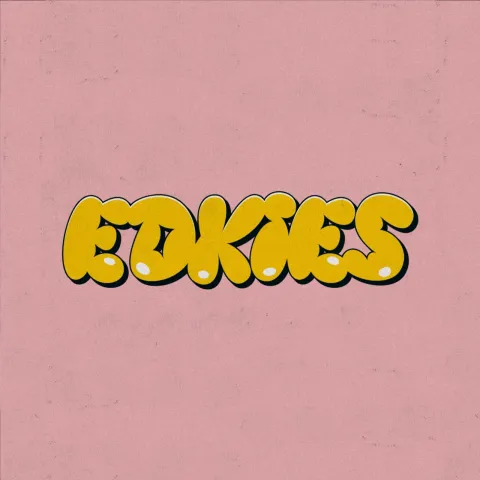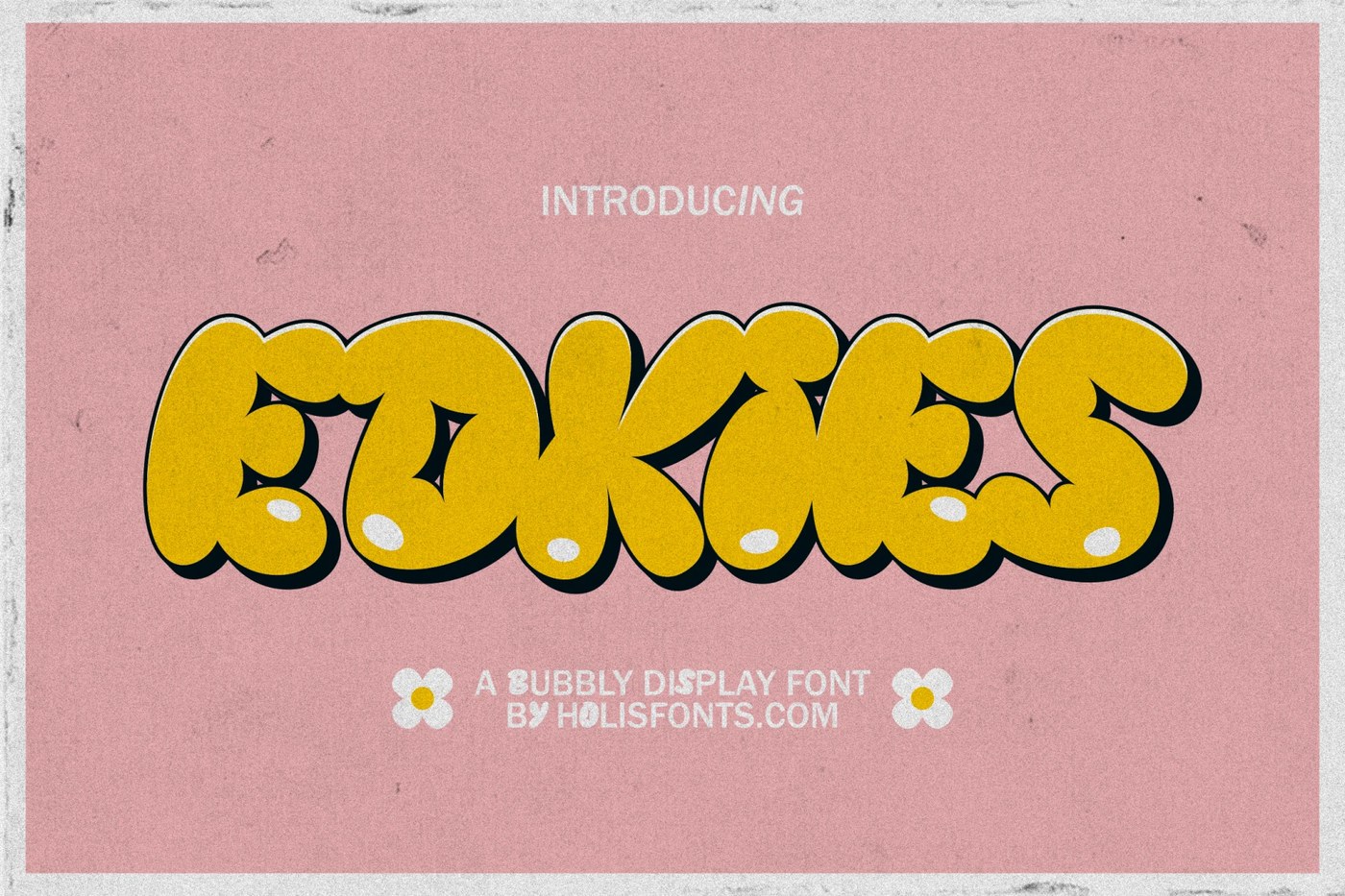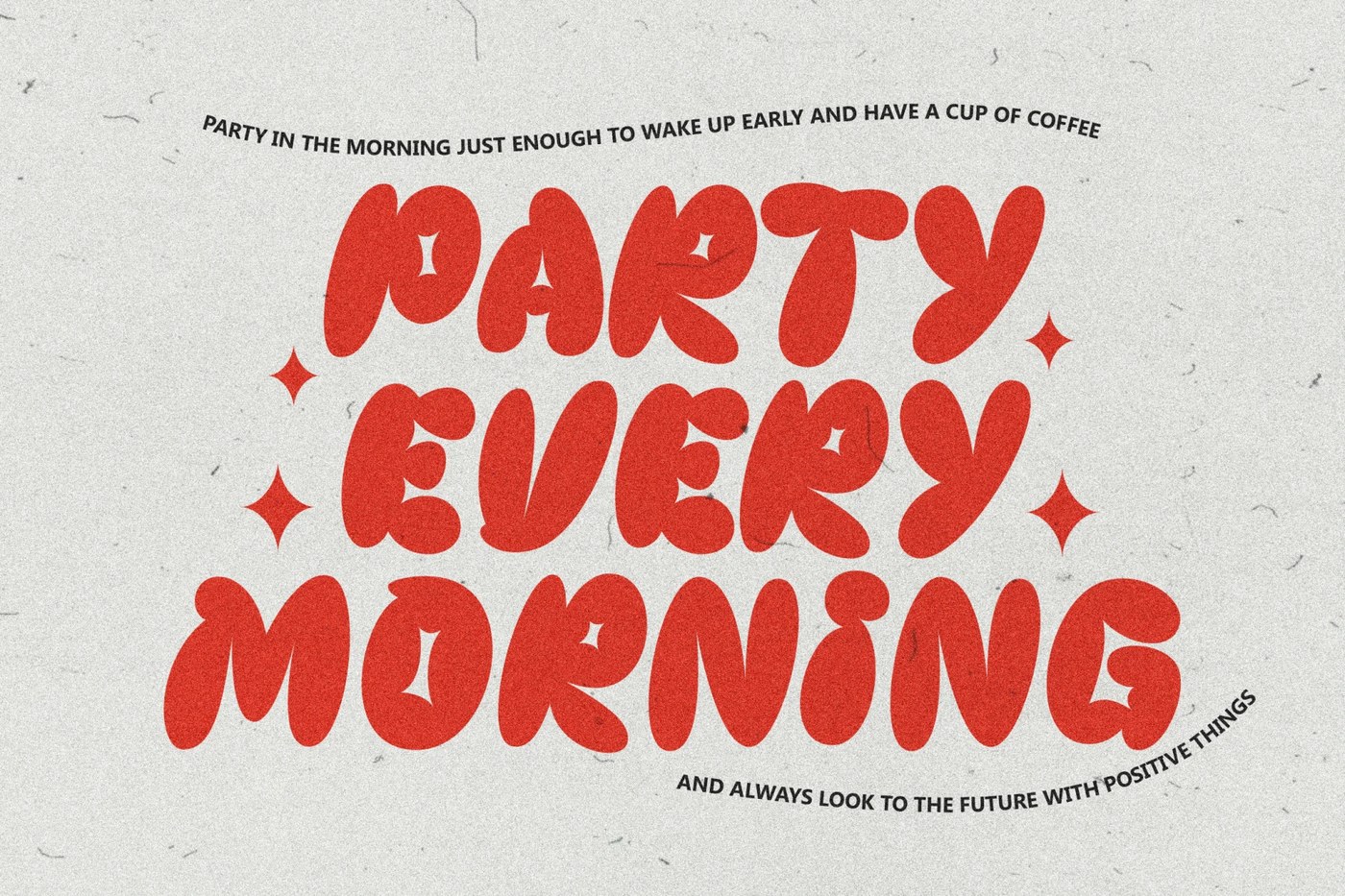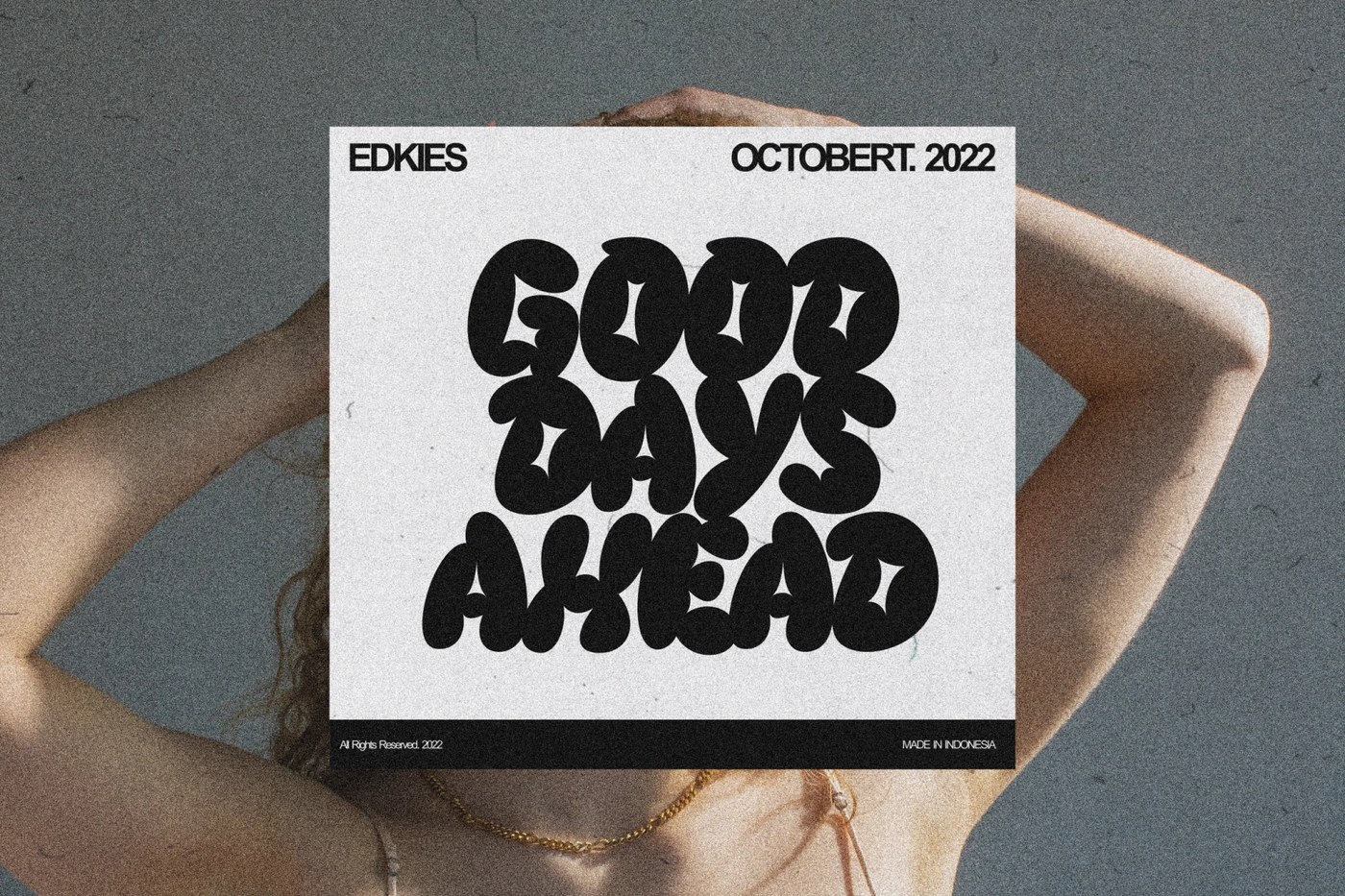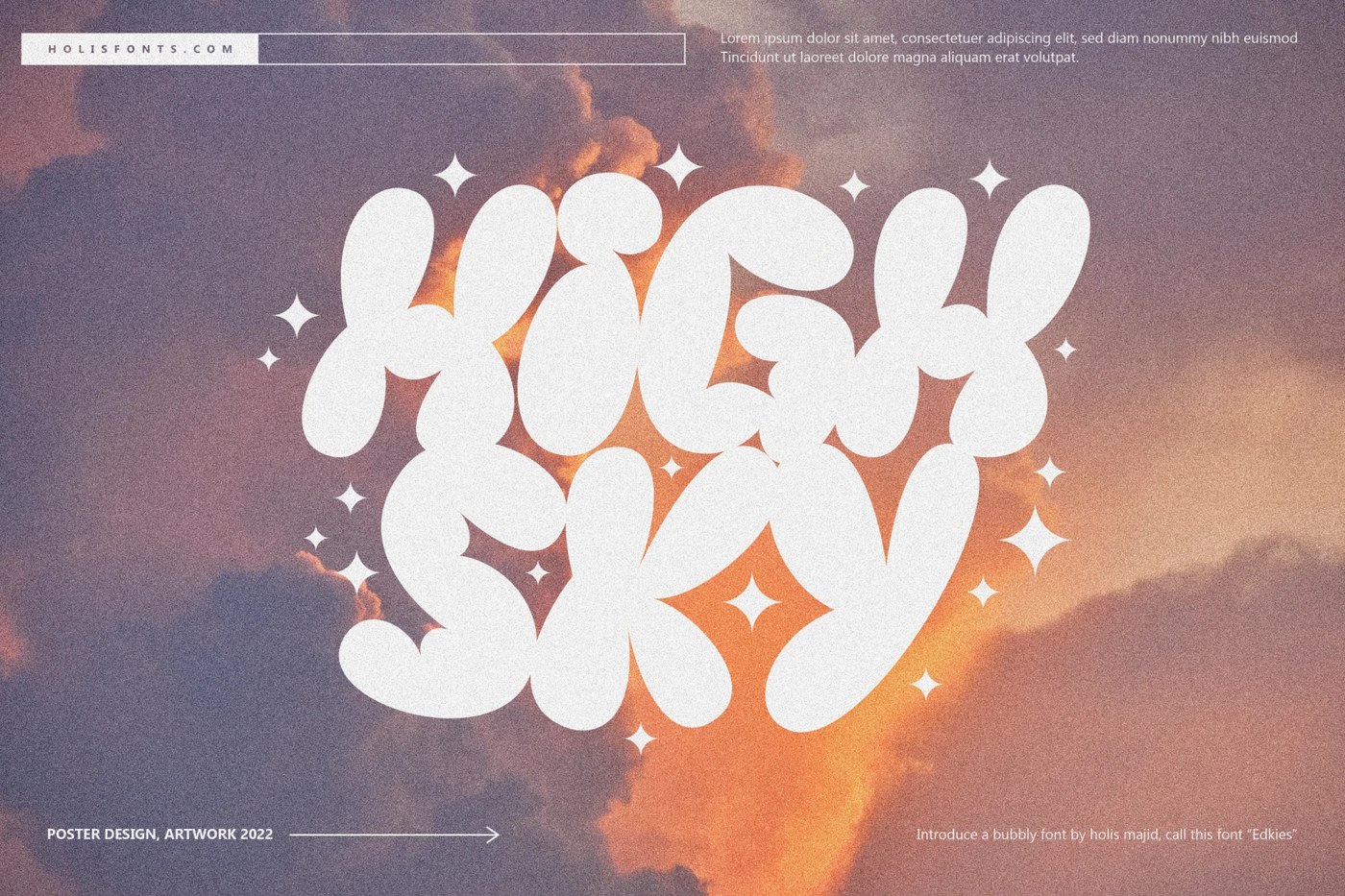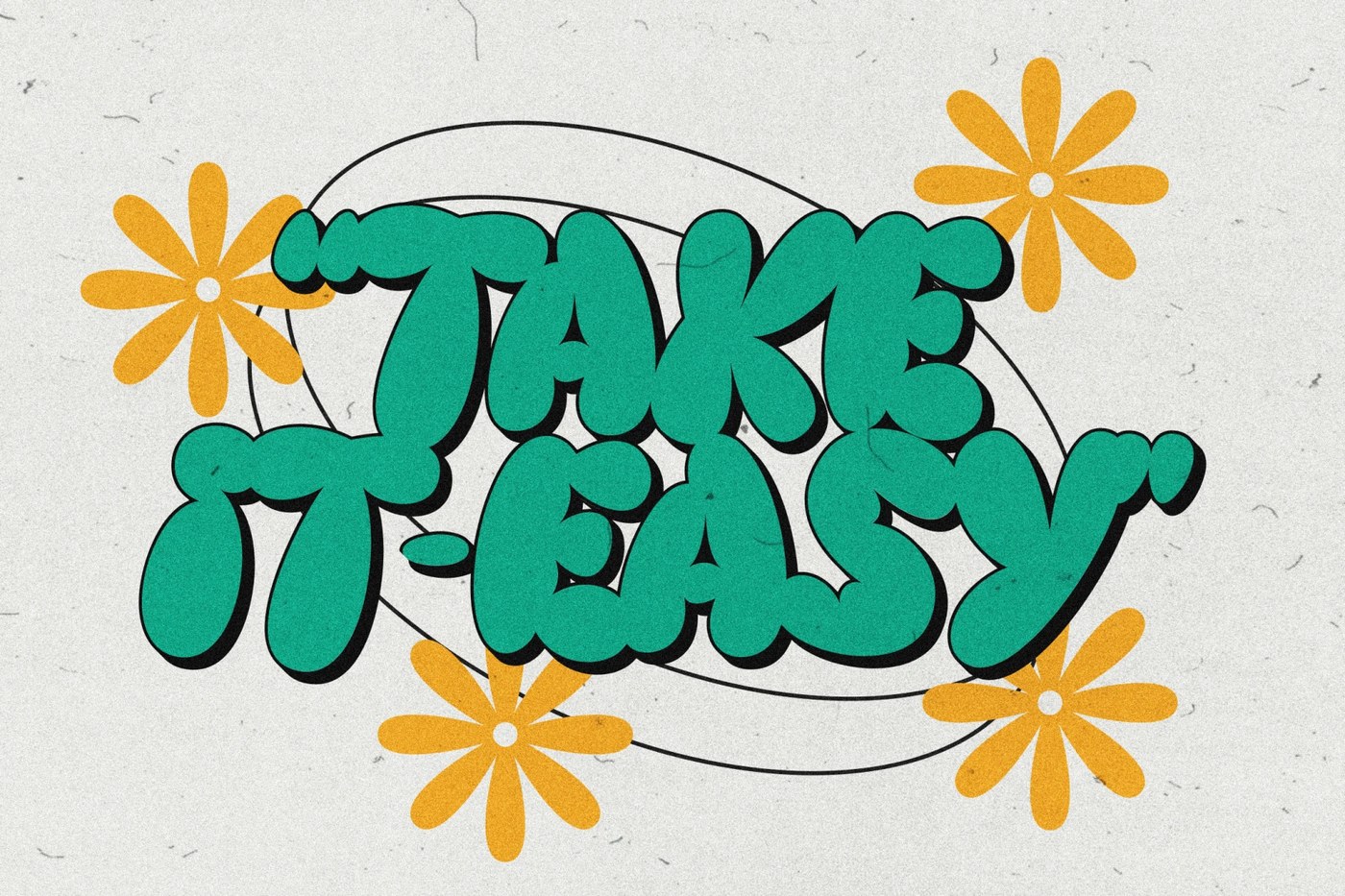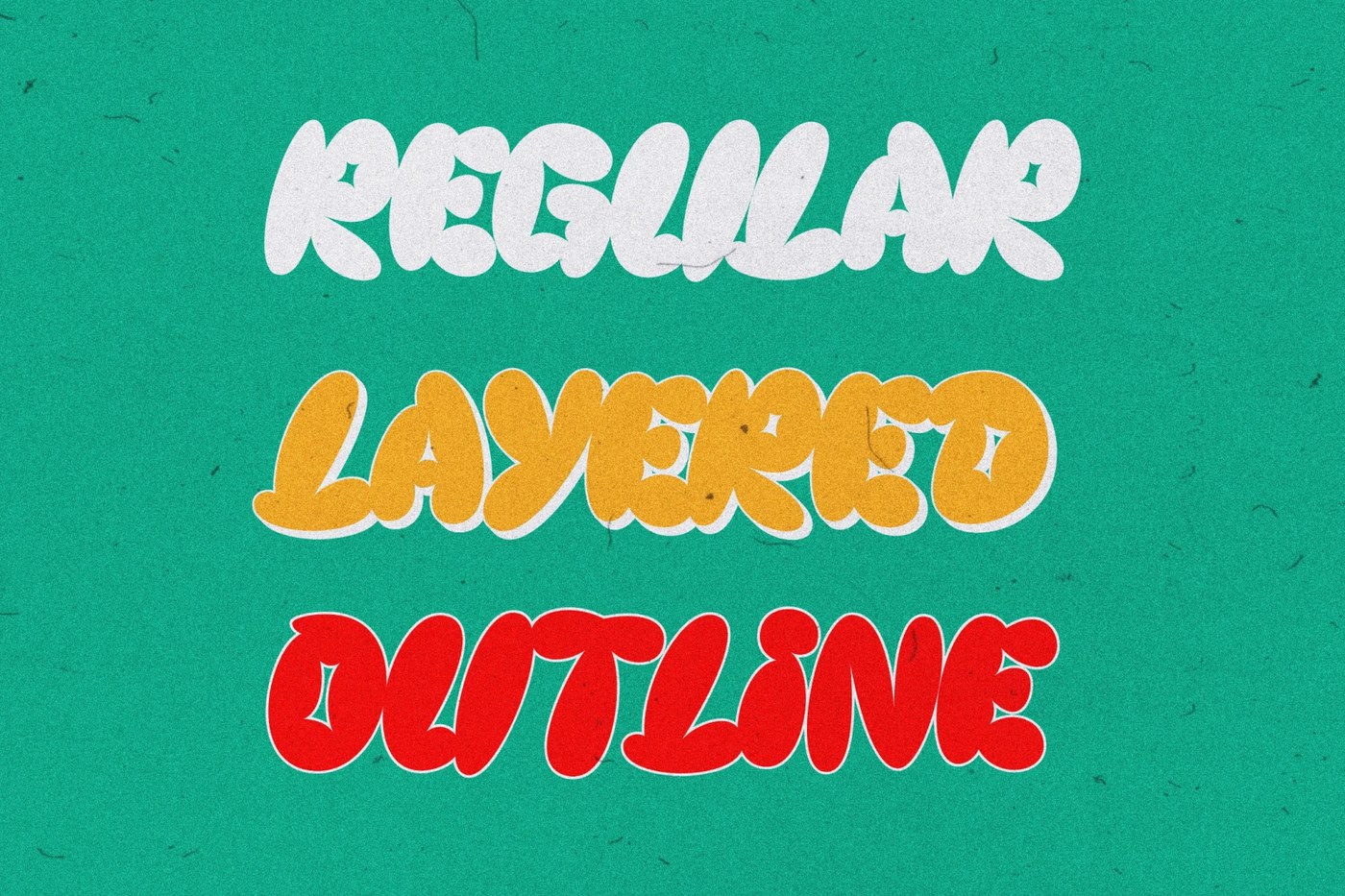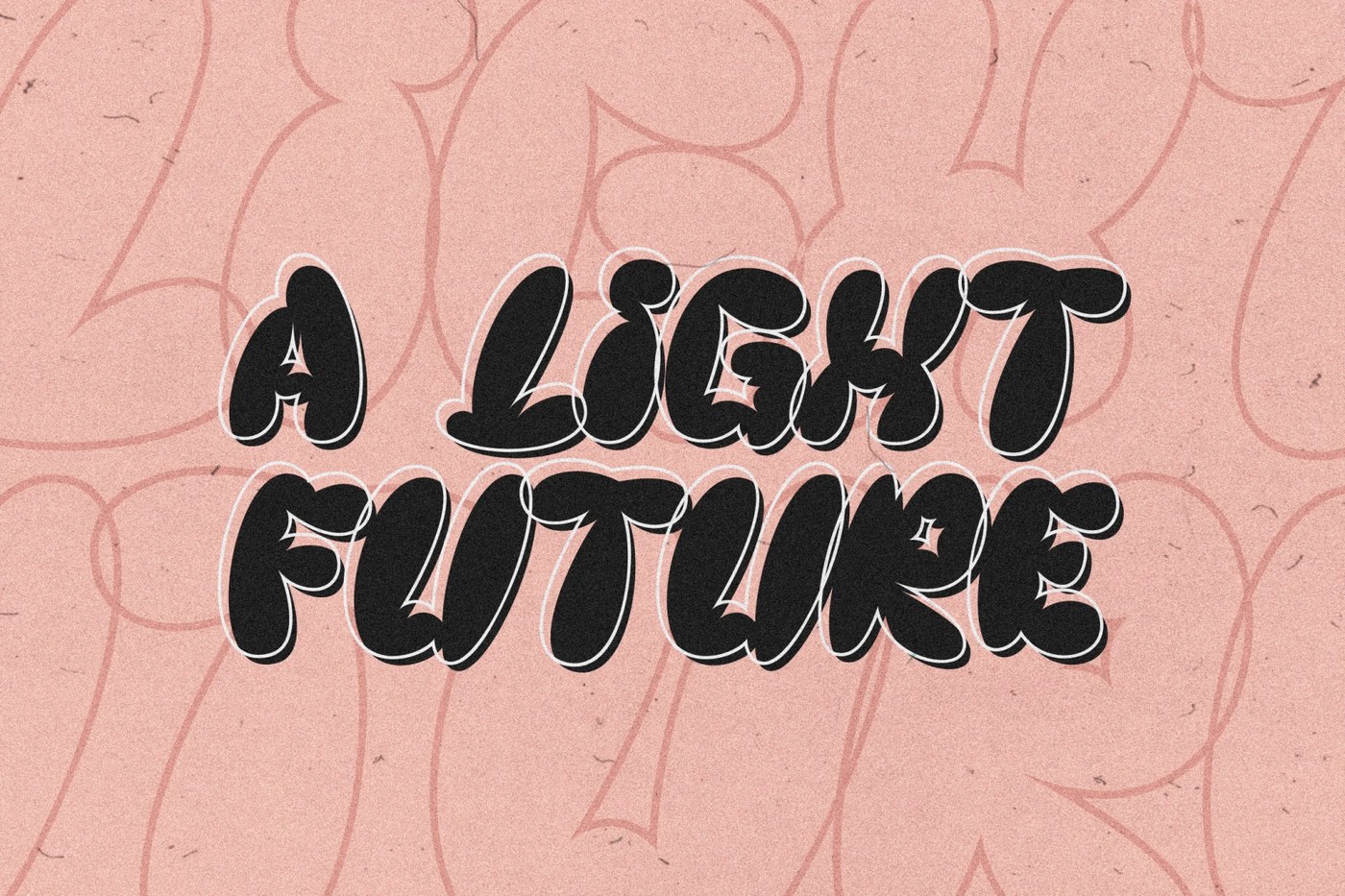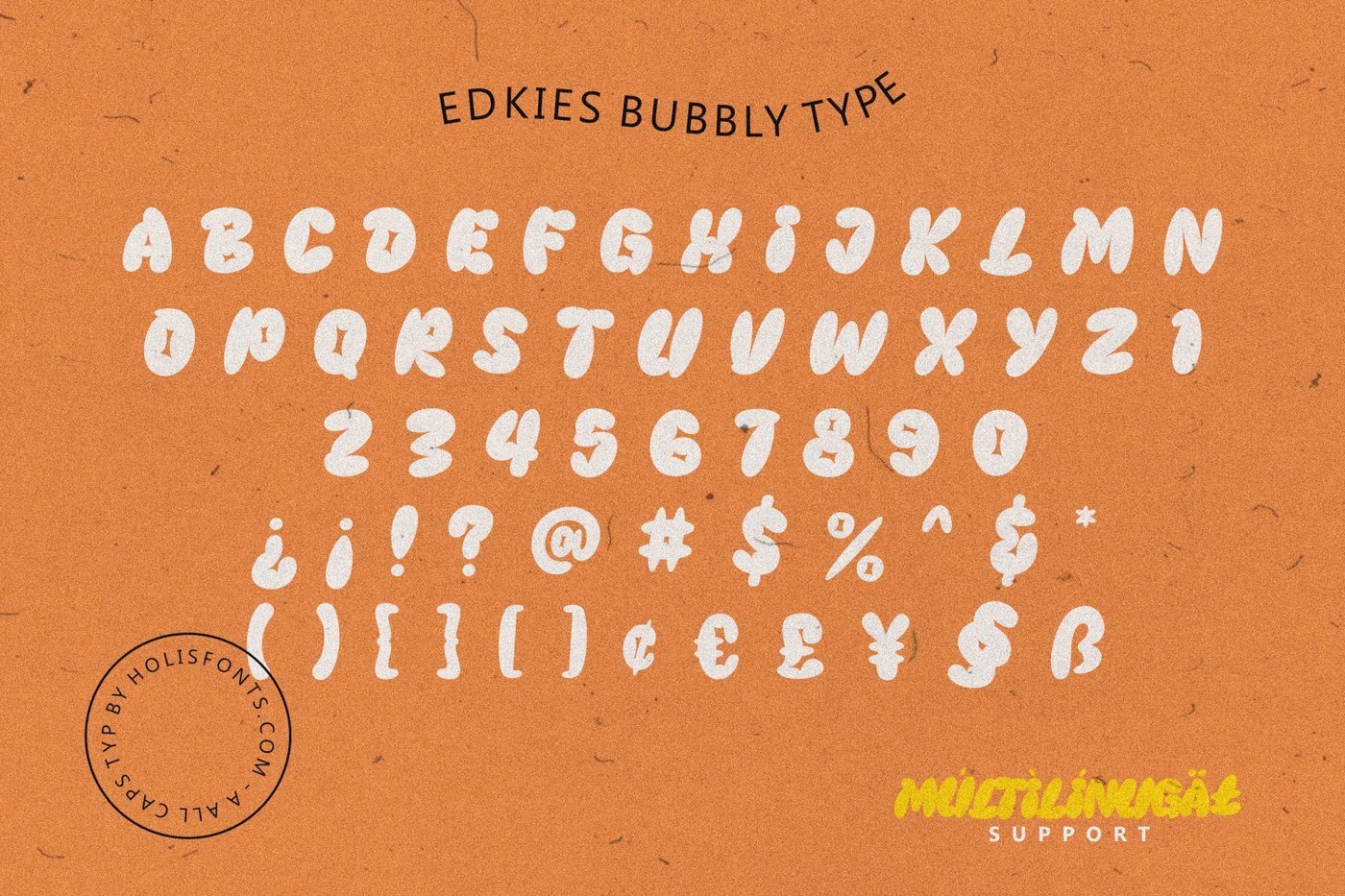
Edkies Bubble Display Font by Pixel Surplus
Edkies is a chubby bubble display font by Pixel Surplus, available in Regular, 3D, and Outline styles, with multilingual support — free for personal use.
Created by Holisfonts.com and released via Pixel Surplus, Edkies is a bubble display font built around inflated, rounded letterforms — the kind that reads immediately from a distance. The characters are uppercase only, which tightens the system and makes each glyph feel deliberate. All three weights — Regular, 3D, and Outline — share the same chubby proportions, so they layer cleanly or work independently. The 3D style adds a solid drop offset that pushes the letterforms forward; the Outline strips them back to their inflated skeleton.
A Bubble Display Font Built for Headlines and Logotypes
Edkies fits naturally wherever personality drives the brief — posters, apparel, packaging labels, social headers. The uppercase-only constraint simplifies deployment: no case mismatch, just consistent weight and rhythm across the full character set. With punctuation, numerals, and multilingual support included, this bubble display font works for real-world briefs beyond English-only headlines. The Y2K and retro tags on the project are accurate — any bubble display font in this register lands cleanly in that aesthetic territory. Free for personal use; commercial licenses are available through Holisfonts.com.